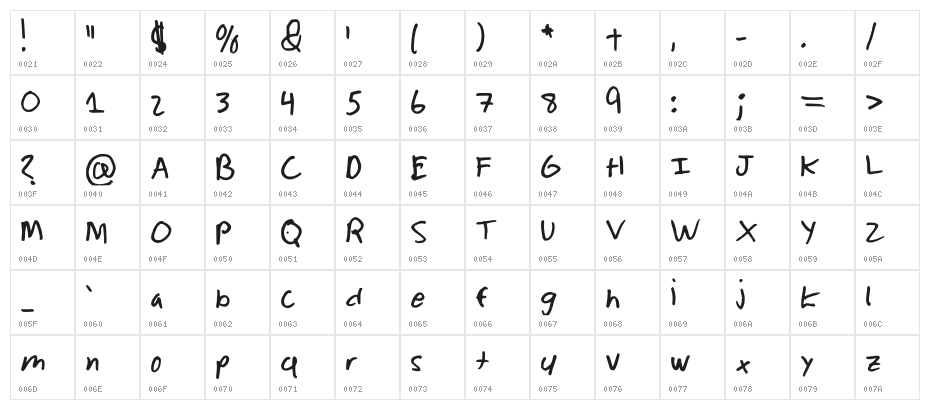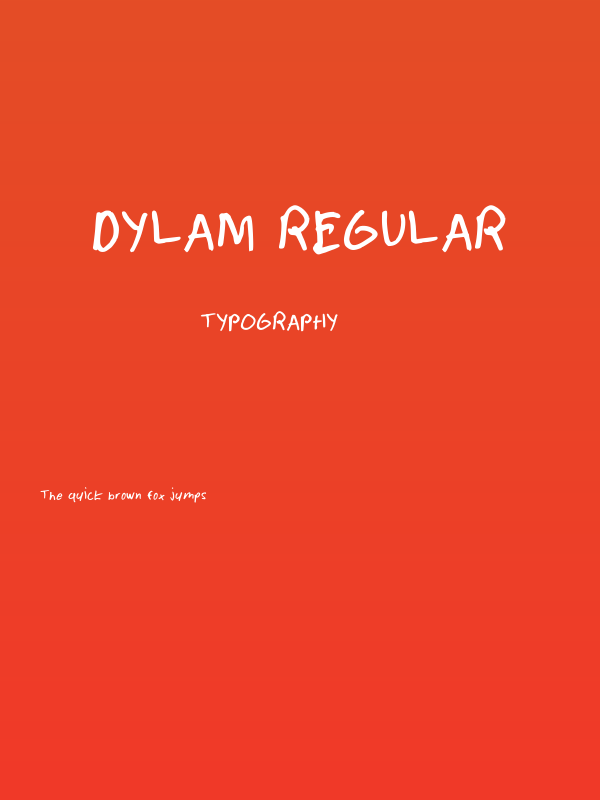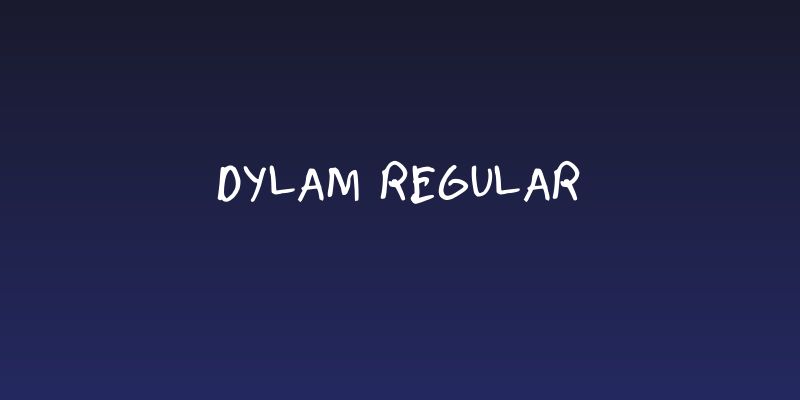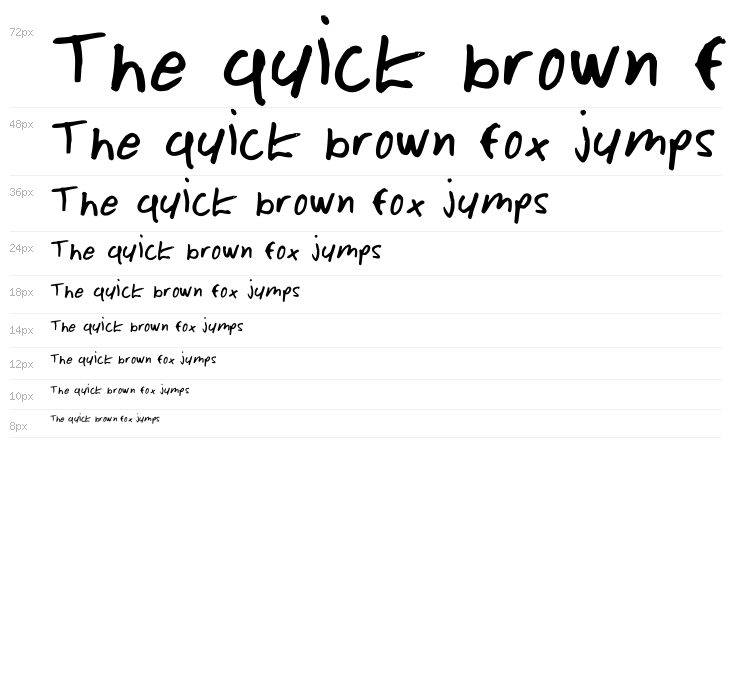
Dylan Regular Font
This font exudes a casual and playful handwritten style, characterized by its uneven strokes and organic flow. The letters vary in width and height, giving it a dynamic and lively appearance. The uppercase letters maintain a consistent height, while the lowercase letters exhibit a more varied baseline, enhancing the informal feel. The numerals are bold and slightly irregular, matching the overall whimsical style. Special characters are creatively designed, adding to the font's unique charm. This font is perfect for projects that require a personal touch or a relaxed, friendly vibe.
Overall StyleCasual, Playful
Use CaseHeadlines, Informal text, Creative projects
Proposed ProjectsIdeal for greeting cards, children's books, casual branding, and social media graphics.